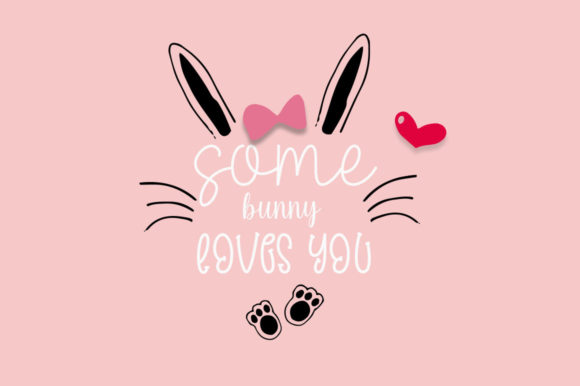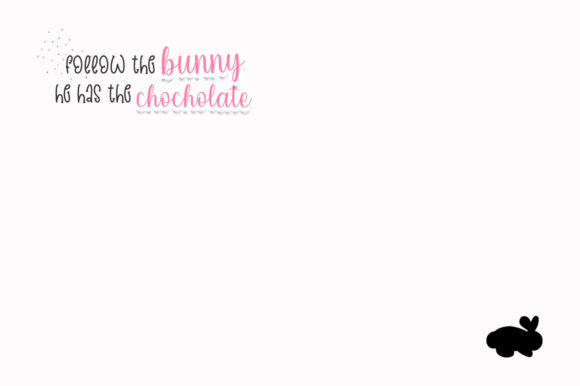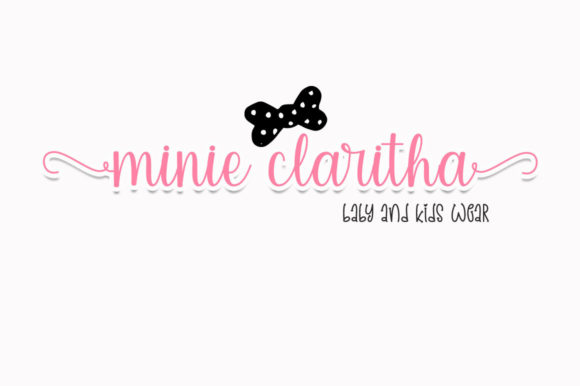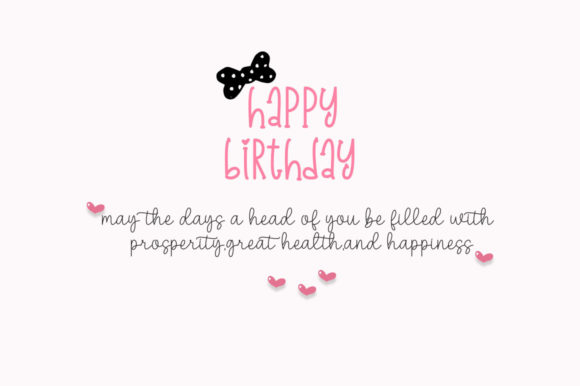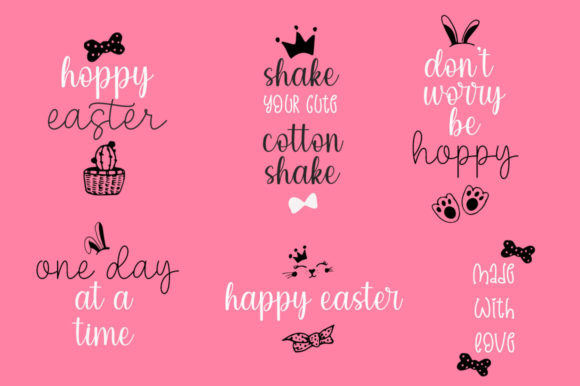
The Easter Font: A Chic and Cheery Addition to Your Design Arsenal
I’ll never forget the time I was working on an Easter-themed project for a client, and I just couldn’t find the perfect font to match the cheerful and playful vibe I was going for. I scoured the internet, tried out dozens of fonts, but nothing seemed quite right. That was until I stumbled upon the Easter Font – a game-changer for designers, crafters, and creative hobbyists alike! 🎉
I’ve had the pleasure of working with the Easter Font, and here’s my honest review:
- ✨ The Easter Font comes in three styles: handwritten, script, and serif, which complement each other perfectly.
- ✅ The fonts are PUA encoded, making it easy to access all glyphs and swashes.
- ✅ The fonts are incredibly versatile and can be used for a wide range of projects, from Easter-themed crafts to everyday design work.
As for quirks, I’ve noticed:
- 🤔 The fonts can be a bit over-the-top for very formal or minimalist designs.
- ⚠️ Some users may find the handwritten style a bit too playful for their taste.
The Story Behind Easter Font
The Easter Font was designed with the intention of creating a unique and versatile font family that captures the playful and cheerful spirit of Easter. The designer aimed to create a font that’s both elegant and fun, making it perfect for a wide range of design projects.
| What is the Easter Font? | The Easter Font is a font family consisting of three styles: handwritten, script, and serif, designed to complement each other perfectly. |
| Is the Easter Font PUA encoded? | Yes, the Easter Font is PUA encoded, making it easy to access all glyphs and swashes. |